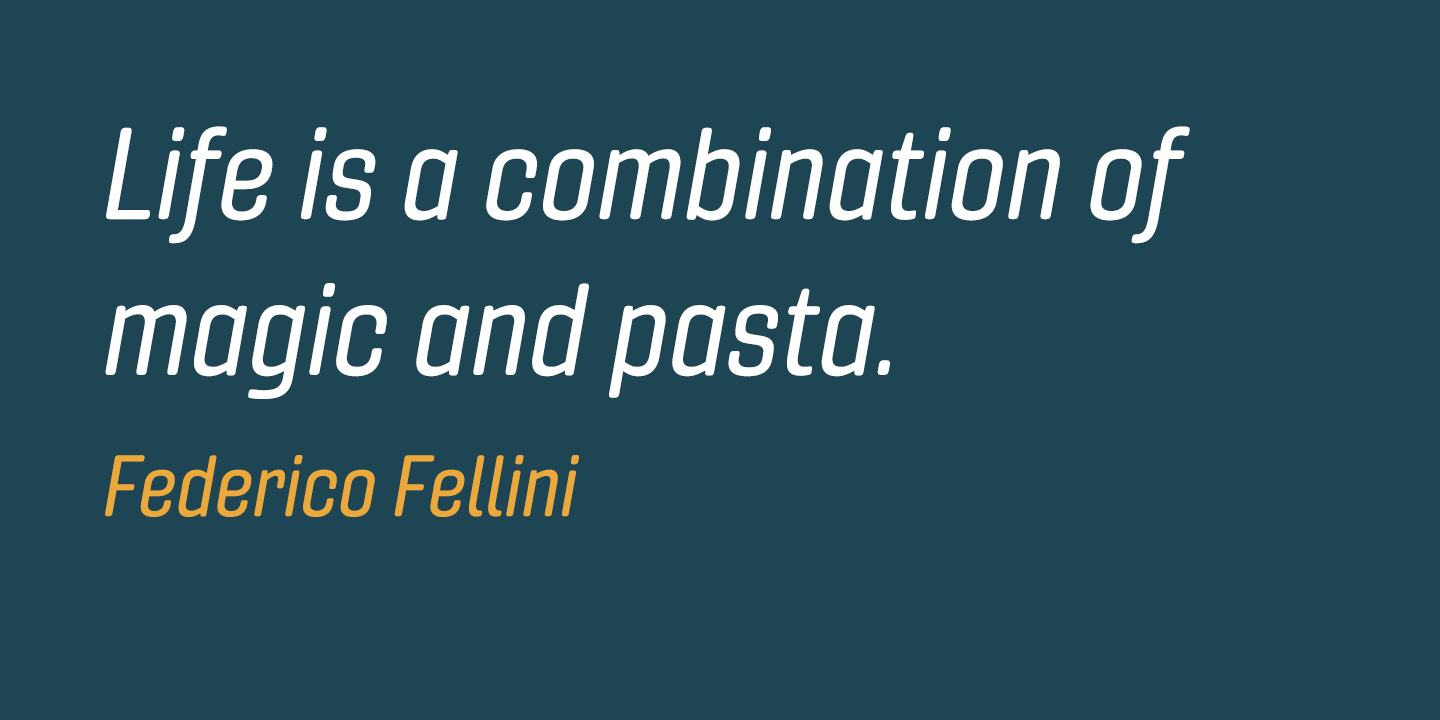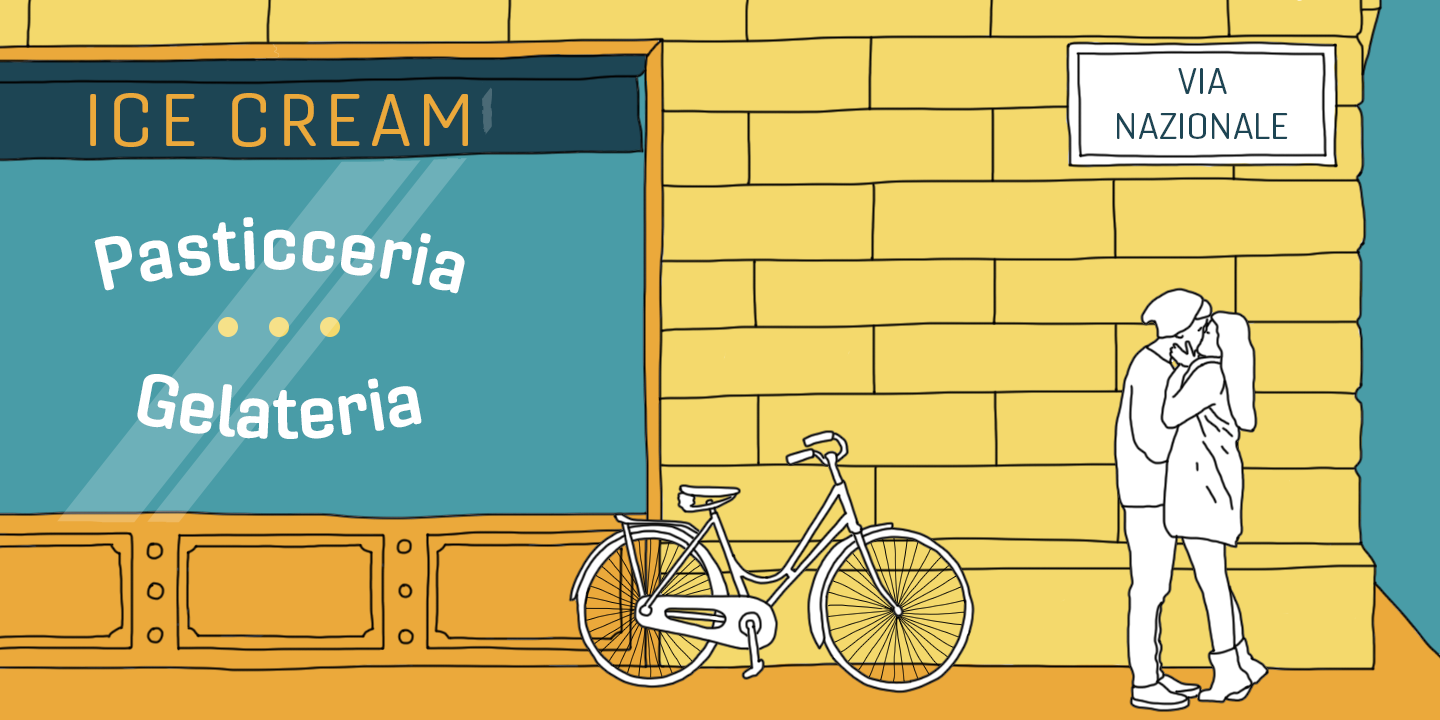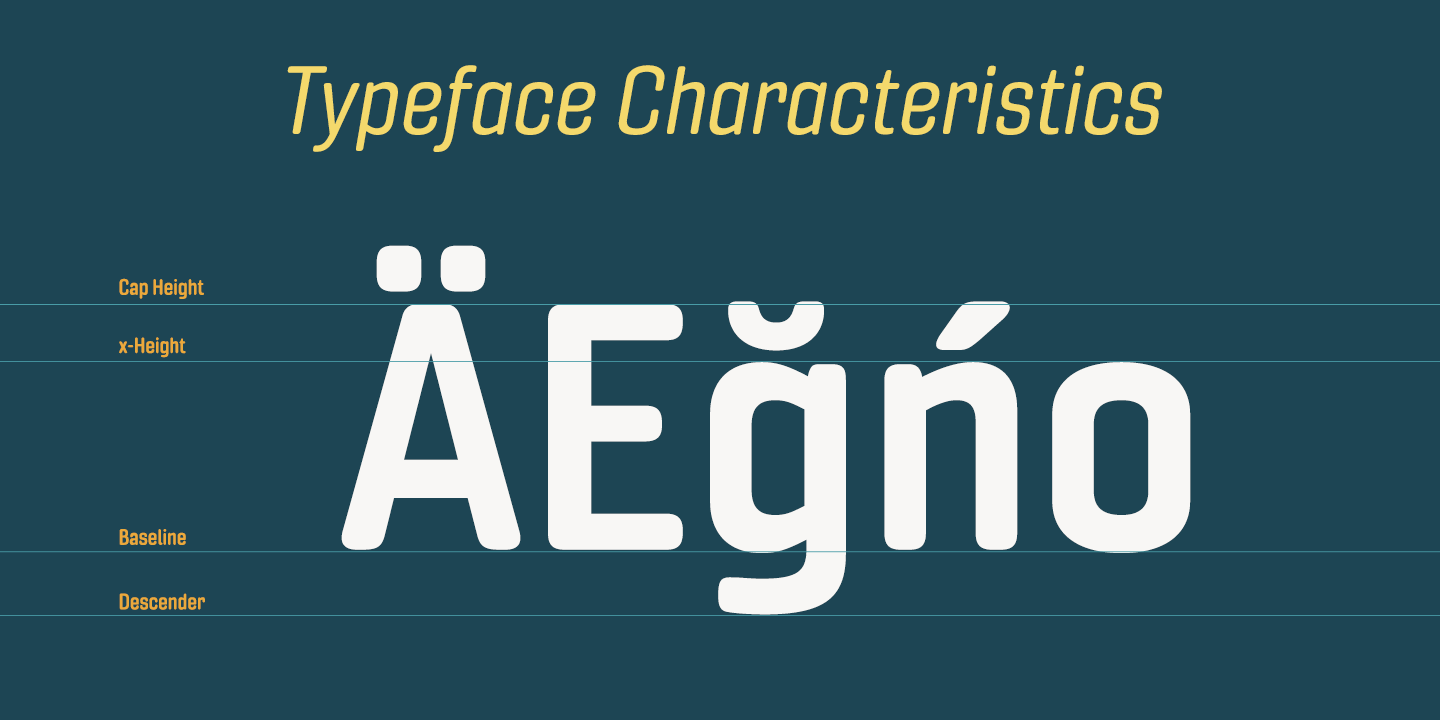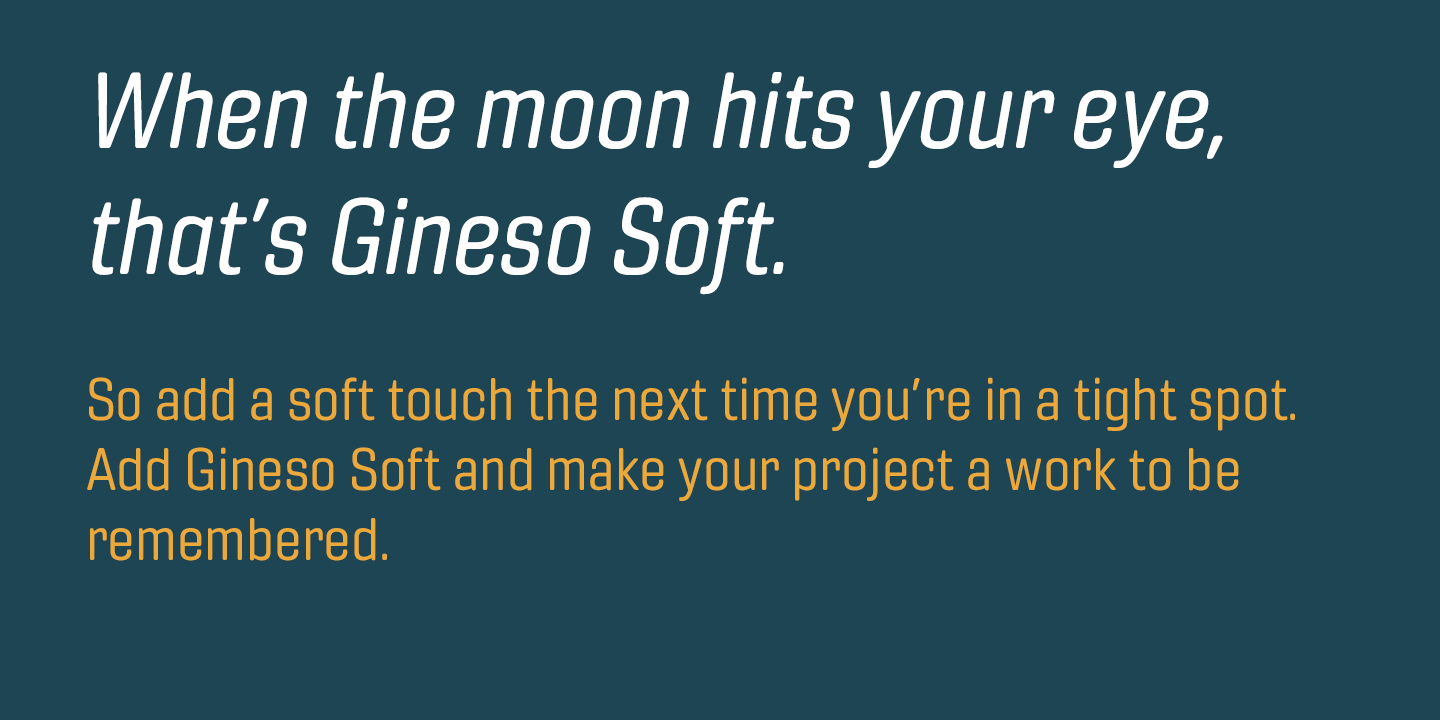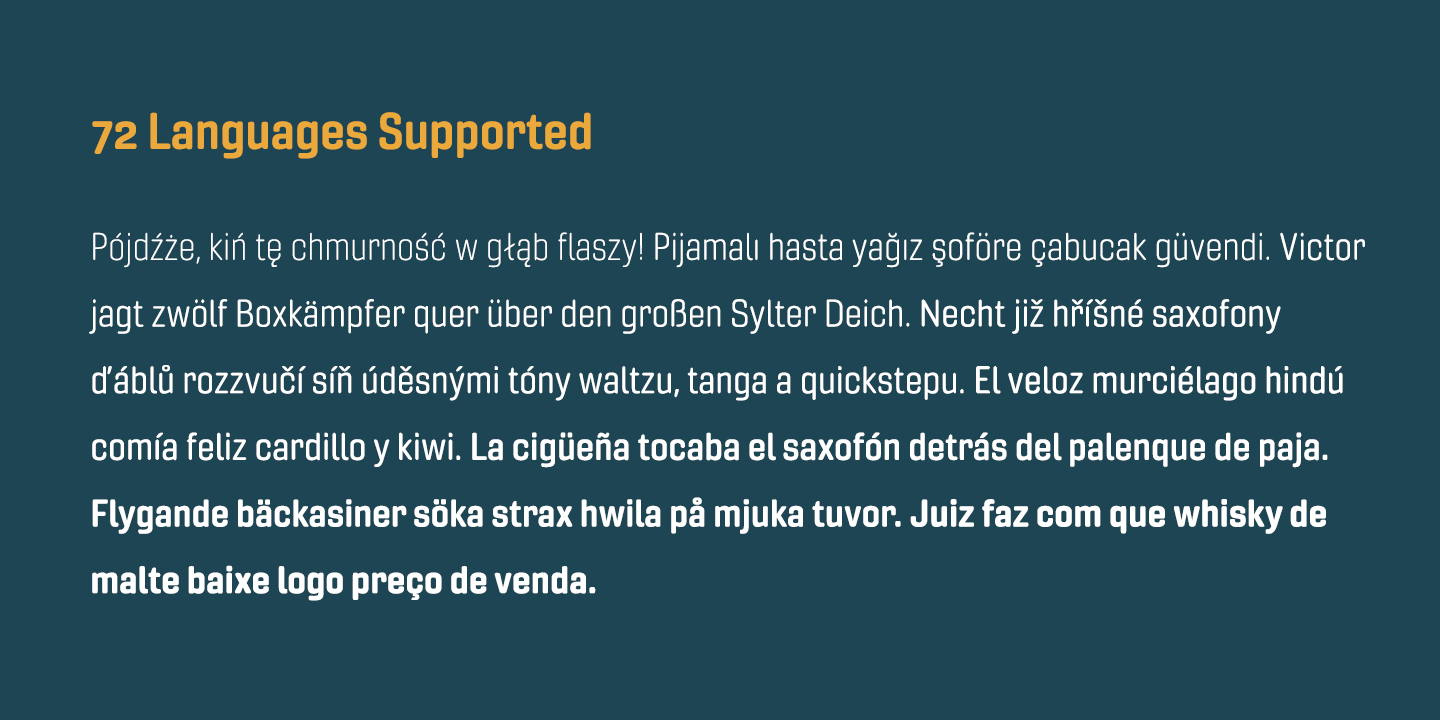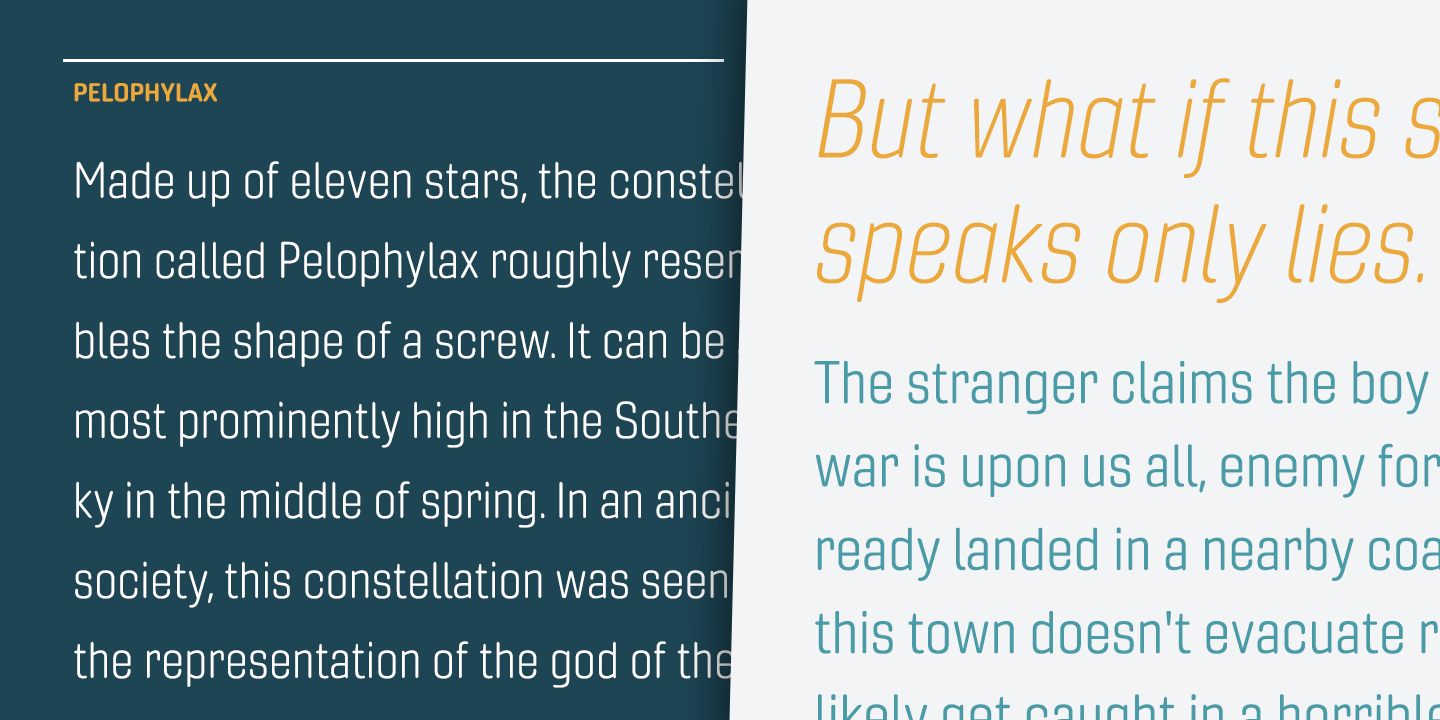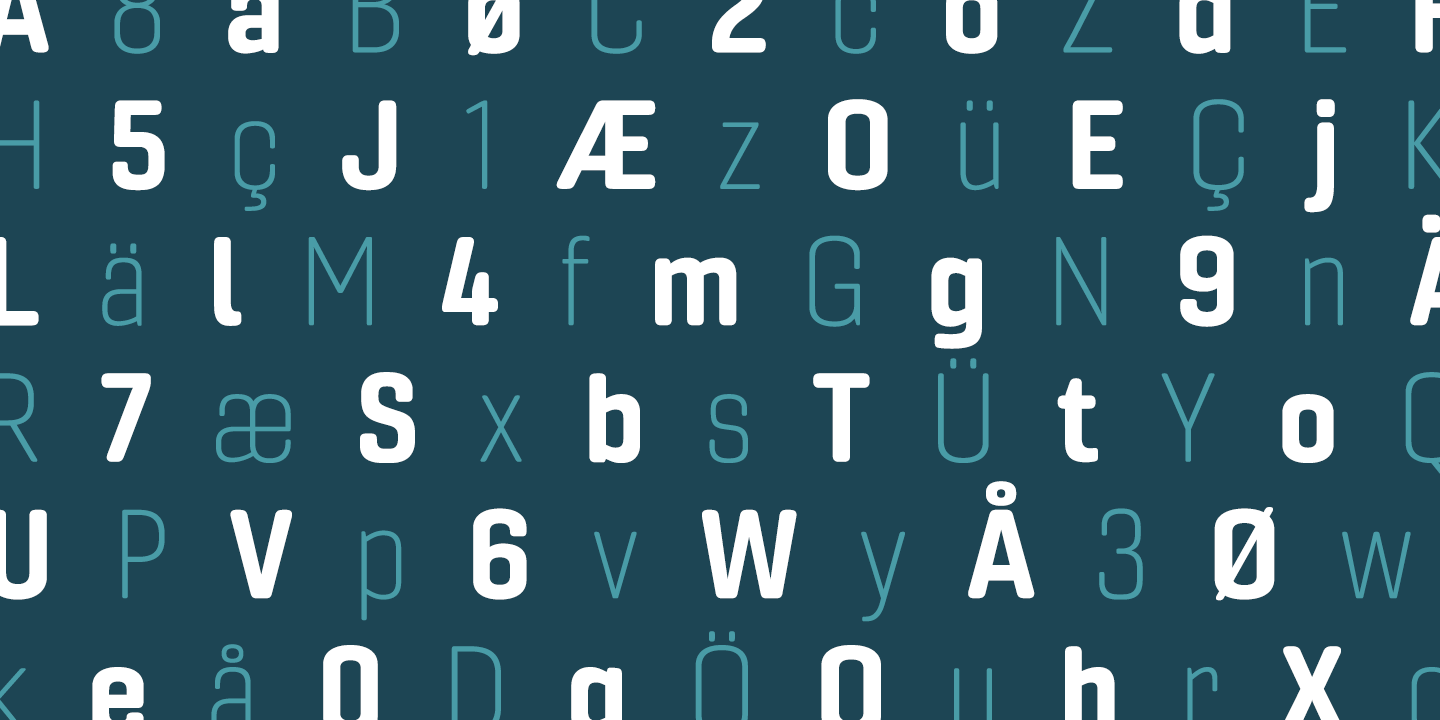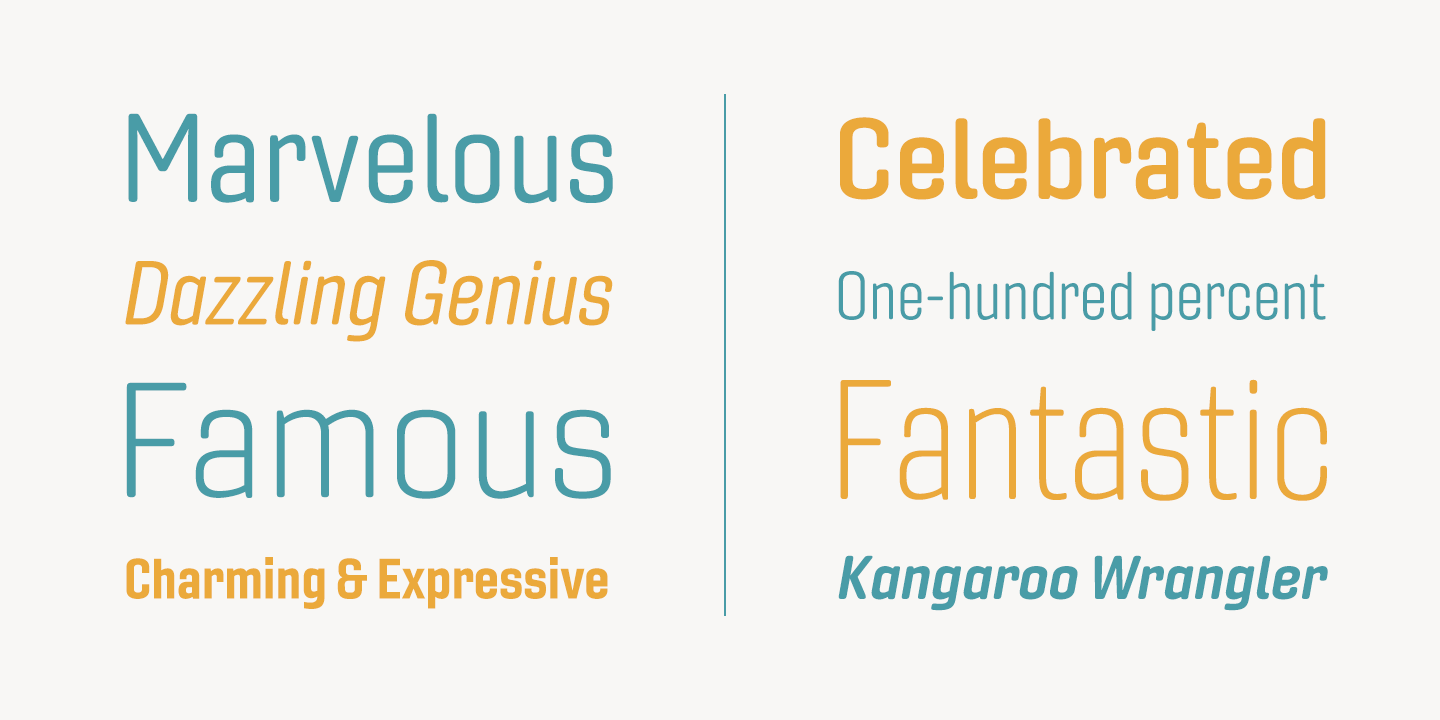
Gineso Soft Condensed Demi
Handcrafted signs line the stoned walkways of old Italy. Some a century old, these often forgotten works of unknown artists remain etched across cities and villages. But now, they make their inviting impressions once again as the inspiration for insigne design’s Gineso Soft typeface. Gineso Soft absorbs the personality of northern Italian posters, headlines and logotypes, providing a type especially nice for signs and titling with its condensed qualities. The font contains matching italics for the the eight weights and three widths. We’ve also included small features along with fractions and superior / inferior characters to broaden your options. Even more, Gineso Soft is ready for all applications and features a large character set for the languages ​​and literature of Europe. So add a soft touch the next time you’re in a tight spot. Add Gineso Soft and make your project a work to be remembered.